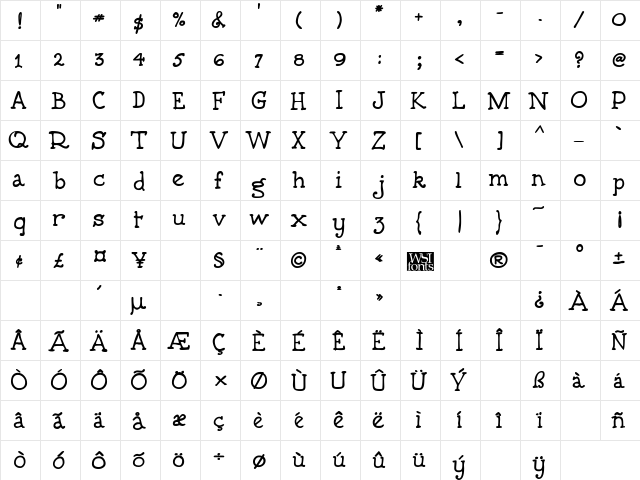
5thGrader Bold
Design Context for 5thGrader Typeface
5thGrader is a composed and adaptable typeface that performs quietly and consistently across a wide range of design contexts. Its bold stroke weight gives it real presence on the page.